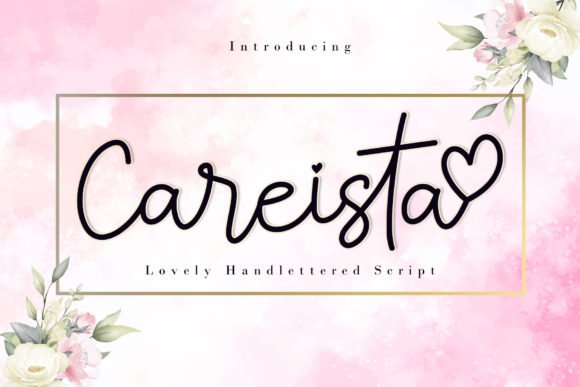
Discover the Timeless Charm of the Careista Font
You know that feeling when you’re brainstorming a new design project, and suddenly, all the pieces fall into place? The colors, the typography, the overall aesthetic – everything just clicks. It’s a moment of pure creative bliss. And for designers, there’s no better way to capture that magic than with the right font. Enter the Careista Font, a sweet and flowing handwritten font that’s sure to captivate your audience.
This beautifully crafted font is not just a pretty face; it’s also PUA encoded, making it a breeze to access all the glyphs and swashes you need to create stunning designs. With its classy calligraphic influences and contemporary flair, the Careista Font is the perfect addition to any designer’s toolkit. Whether you’re working on a wedding invitation, a brand logo, or a social media campaign, this font is sure to bring a touch of timeless elegance to your work.
Careista Font Key Features
- Font Style: Script, Casual, Elegant
- Character Count: 1000+ glyphs, including Latin, Cyrillic, and Greek alphabets
- Unique Characteristics: Delicate, cursive script with elegant flourishes and subtle texture, ideal for creative and luxurious designs
Careista Font Review
The Careista Font has a unique and elegant feel to it, making it perfect for luxury and high-end branding. The font is highly customizable, allowing designers to adjust the weight, spacing, and style to fit their specific needs.
- Highly customizable with multiple weights and styles
- Great for luxury and high-end branding
- Well-suited for body text and titles
While the Careista Font is a great addition to any designer’s toolkit, there are a few limitations to be aware of:
- May not be suitable for casual or playful branding
- Lacks a strong personality, making it blend in with other fonts
- Can be difficult to read at very small font sizes
The Careista Font is a solid choice for designers looking for a high-end, elegant font. While it may not be the most exciting or unique font, it’s a reliable option that’s sure to impress. With its high customizability and versatility, I’d definitely recommend the Careista Font for designers looking to add a touch of luxury to their projects.
Tips for Getting the Most Out of the Careista Font
Here are some tips to help you get the most out of the Careista Font:
- Use the Careista Font for titles and headings to add a touch of elegance.
- Combine the Careista Font with other fonts to create a unique and stylish look.
The Careista Font is ideal for:
- Fashion and beauty design.
Alternatives to Careista Font for Designers
Playfair Display is a luxurious, elegant serif font ideal for creating a high-end and sophisticated look. It’s perfect for headings, titles, and other prominent text elements. When to use: Fashion, luxury, and high-end branding.
Compared to Careista Font, Playfair Display has a more refined and classic look, with intricate details and ornate flourishes. While Careista Font has a modern and sleek feel, Playfair Display exudes opulence and sophistication.
Great Vibes is a beautiful, cursive script font that conveys a sense of elegance and refinement. It’s suitable for invitations, wedding stationery, and other creative projects. When to use: Creative, artistic, and romantic branding.
Compared to Careista Font, Great Vibes has a more fluid and handwritten feel, with a softer, more organic look. While Careista Font is modern and sleek, Great Vibes is whimsical and artistic.
Pacifico is a stunning, elegant script font that evokes a sense of relaxation and calmness. It’s perfect for beach-inspired branding, travel websites, and other projects that require a laid-back vibe. When to use: Beach, travel, and outdoor branding.
Compared to Careista Font, Pacifico has a more relaxed and casual feel, with a softer, more rounded look. While Careista Font is modern and sleek, Pacifico is carefree and laid-back.